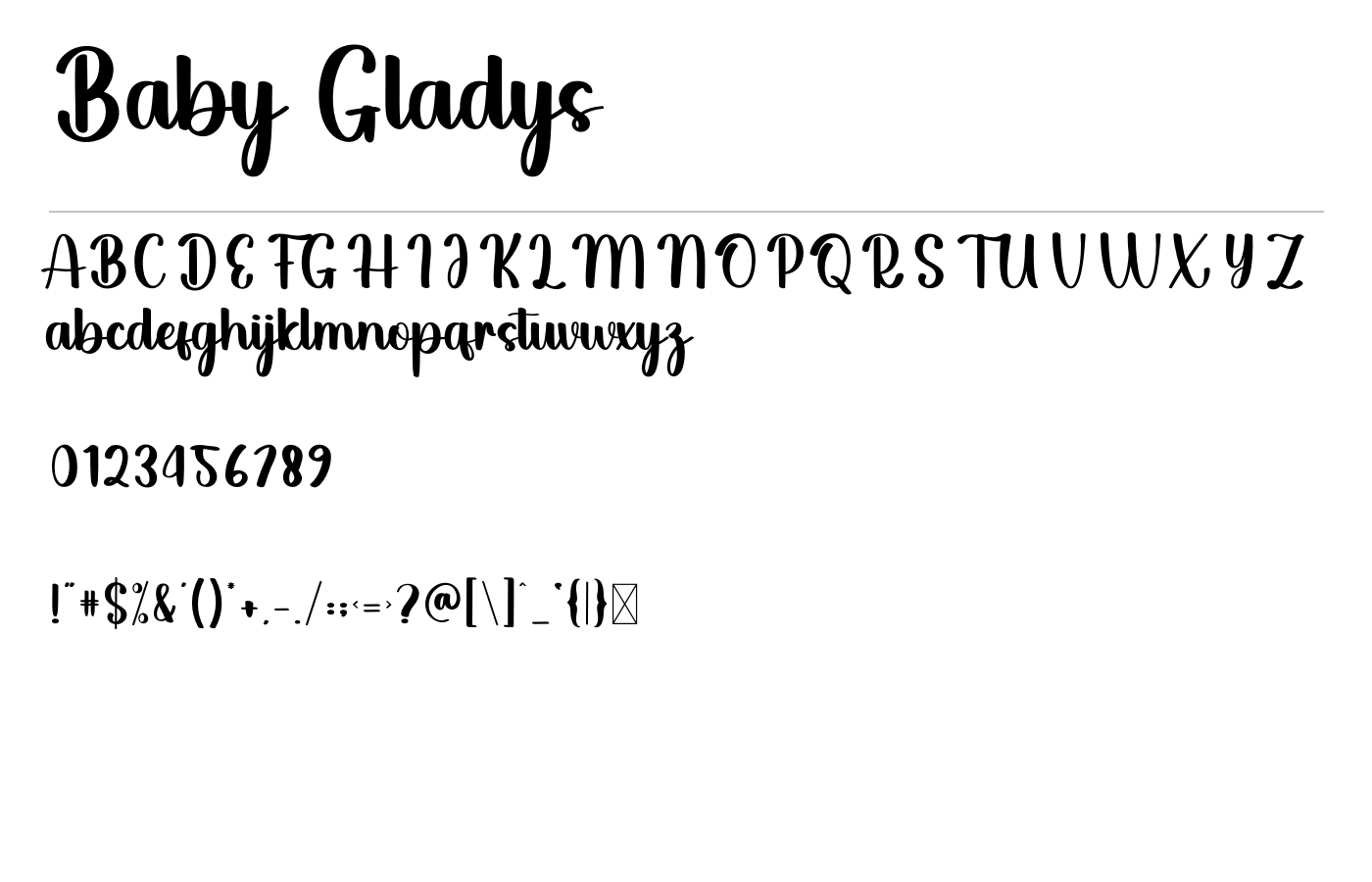
Baby Gladys is a playful and charming script font with rounded, smooth strokes and a friendly, approachable feel. Its medium weight and lively letterforms with a mix of single and double-story characters make it perfect for casual branding, invitations, and creative headlines where a warm, informal touch is desired. This font works well for projects needing a cheerful, hand-lettered vibe without sacrificing readability.
Baby Gladys Font